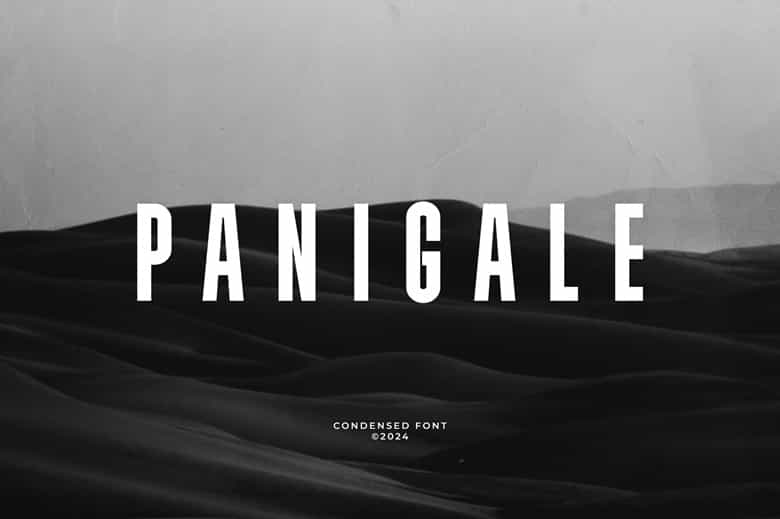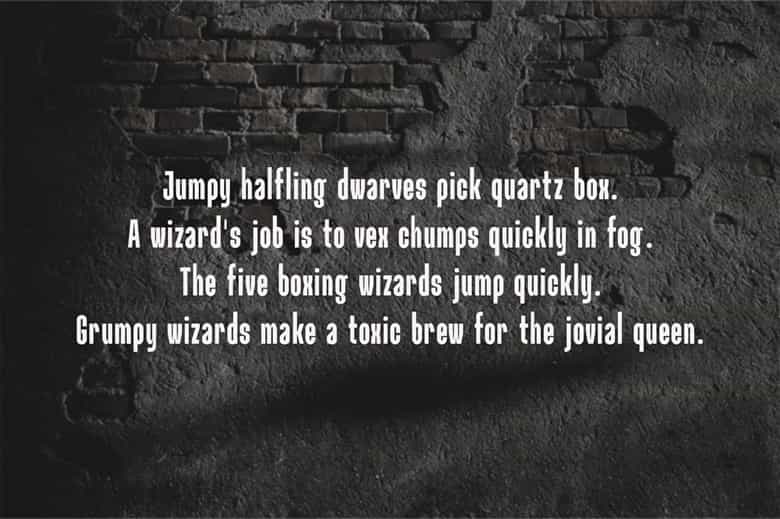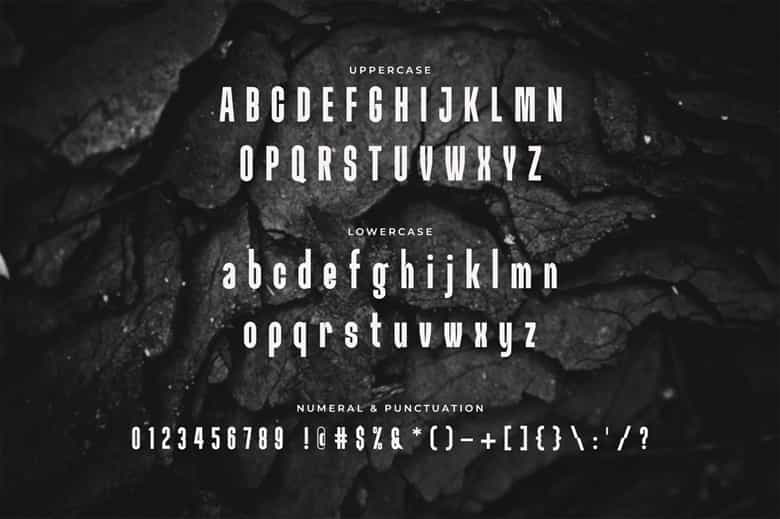
Panigale is a new modern condensed sans serif typeface that reflects its geometric profiled shapes and rather compressed nature of the letter shapes. The font also seems very sleek and stylish which makes it fit for actualization in different designs. Its strong and authoritarian impression is good for headlines, logos, and other graphic items that need.